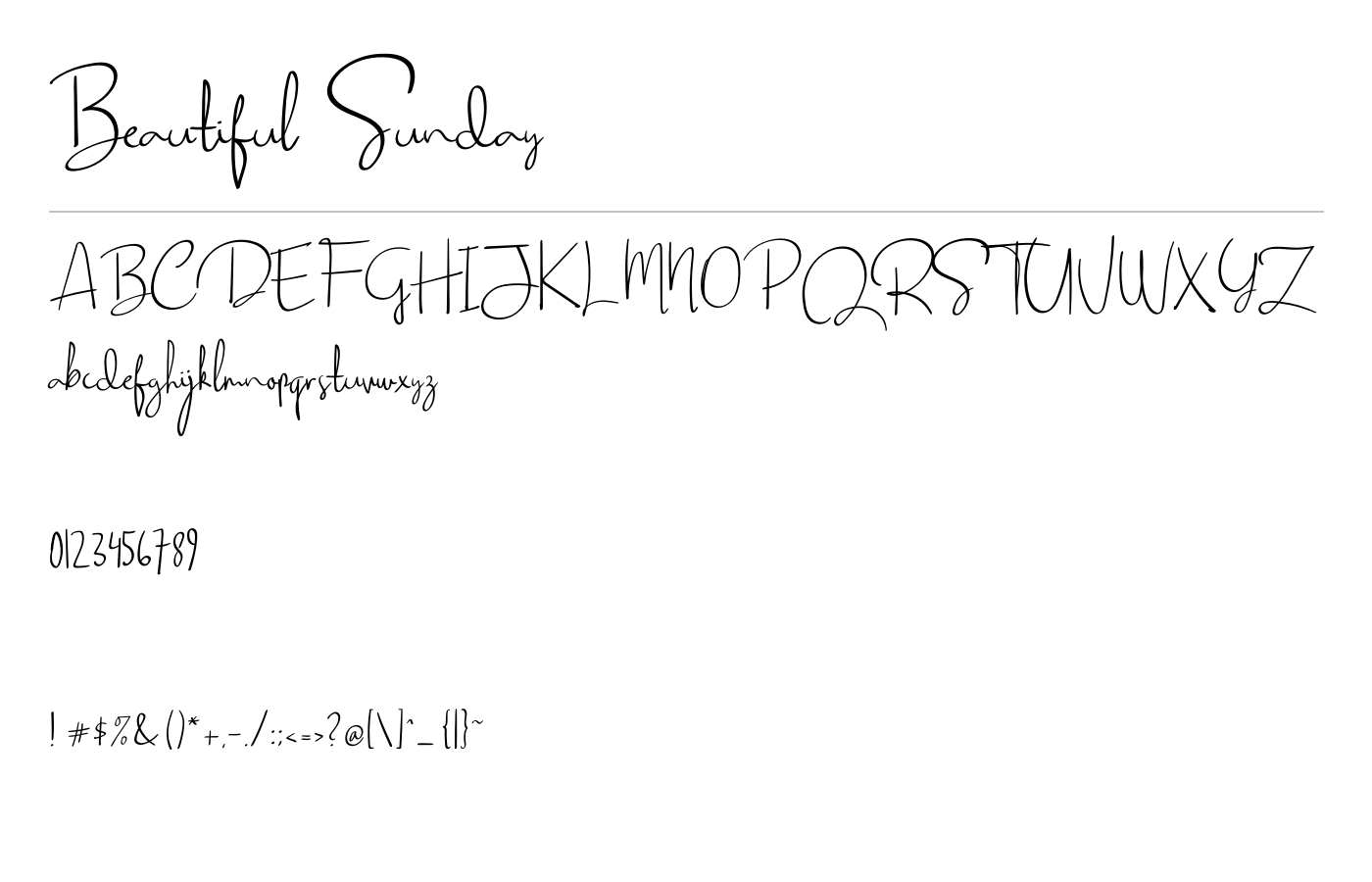
Beautiful Sunday is a delicate, handwritten script font with thin, flowing strokes that give it a whimsical and elegant feel. Its tall, narrow letterforms and playful curves make it perfect for creative projects like invitations, branding, and personal logos where a light, airy personality is desired. This font works well in designs that seek a friendly, artistic touch while maintaining readability and charm.
Beautiful Sunday Font